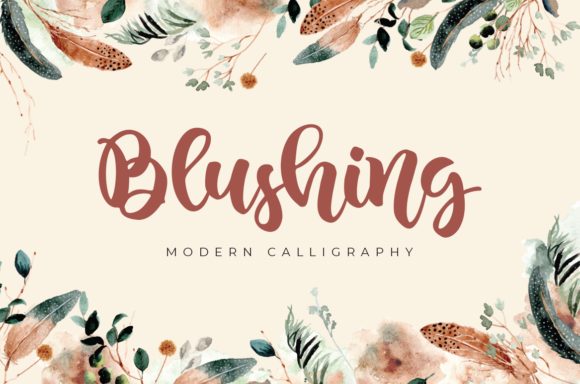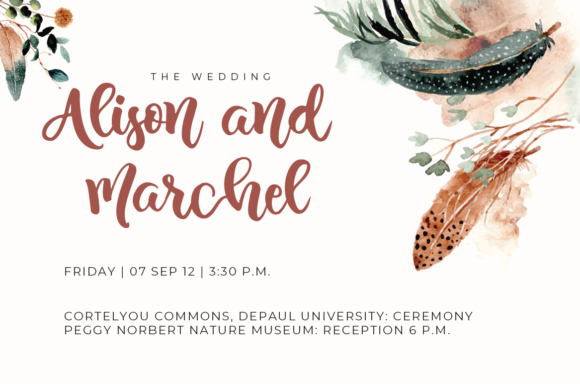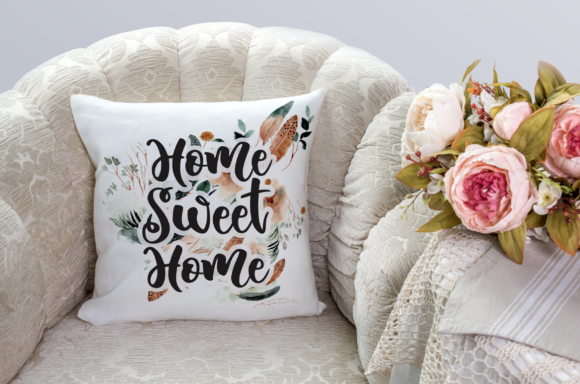
About Blushing Font
“Blushing” sounds like a beautiful and elegant handwritten font that captures the essence of sophistication and modernity. With its exquisite design and versatile style, this font can elevate your projects to new heights. Here are some creative ideas on how to use “Blushing” to create stunning and impactful designs:
1. Wedding Invitations: Design romantic and elegant wedding invitations that evoke a sense of love and celebration. The classy calligraphic influences of “Blushing” will add a touch of refinement to the design.
2. Branding and Logos: Use “Blushing” to create sophisticated and memorable logos for businesses or personal brands, reflecting a sense of elegance and professionalism.
3. Greeting Cards: Craft exquisite greeting cards for various occasions, such as birthdays, anniversaries, or special holidays, combining “Blushing” with beautiful illustrations for a heartfelt touch.
4. Art Prints: Create art prints featuring inspirational quotes or phrases in the font’s elegant style, perfect for home decor or gifting purposes.
5. Personal Stationery: Design personalized stationery sets, including letterheads and envelopes, with “Blushing” to make every written message feel special and stylish.
6. Product Packaging: Apply the font to product packaging, such as labels, tags, or boxes, to enhance the overall presentation and add a sense of luxury to the brand.
7. Calligraphy Workshops: If you conduct calligraphy workshops or tutorials, “Blushing” can be a great choice for creating handouts or promotional materials.
8. Social Media Graphics: Elevate your social media presence with eye-catching graphics and quotes using “Blushing,” appealing to your audience with its contemporary elegance.
9. Magazine Titles: Use “Blushing” for magazine covers or section titles to draw attention and create an upscale and refined look.
10. Menu Design: Apply the font to design menus for restaurants or cafes, adding a touch of sophistication to the dining experience.
11. Book Covers: Create book covers with “Blushing” for novels, poetry collections, or journals, conveying a sense of elegance and allure to potential readers.
12. Luxury Brands: If you work with luxury brands or high-end products, “Blushing” can be a perfect choice to reflect the brand’s refined image.
13. Bridal Shower Invitations: Design elegant and stylish bridal shower invitations, capturing the excitement and joy of the upcoming wedding celebration.
14. Magazine Layouts: Incorporate “Blushing” into magazine layouts for articles or interviews, enhancing the overall reading experience with its graceful appearance.
15. Event Programs: Use “Blushing” to design event programs for galas, awards ceremonies, or special gatherings, making a lasting impression on attendees.
16. Fine Art Prints: Create limited-edition fine art prints featuring exquisite calligraphy and illustrations using “Blushing.”
17. Editorial Designs: Apply the font to editorial designs for magazines or online publications, infusing a touch of elegance into the content.
18. Beauty and Fashion: Use “Blushing” in beauty and fashion campaigns, showcasing the font’s sophistication in promoting products or services.
19. Boutique Signage: Design elegant signage and displays for boutique shops, capturing the attention of passersby with the font’s charm.
20. Wedding Signage: Use “Blushing” to create beautiful signage for weddings, from welcome signs to seating charts, adding a touch of elegance to the decor.
In conclusion, “Blushing” is an exquisite handwritten font that strikes a perfect balance between classic calligraphic influences and contemporary elegance. Whether for wedding invitations, branding, social media graphics, or product packaging, this font can enhance the visual appeal of your designs and leave a lasting impression on your audience. With “Blushing,” your projects can achieve a sense of sophistication and refinement, making them truly stand out at the highest levels.